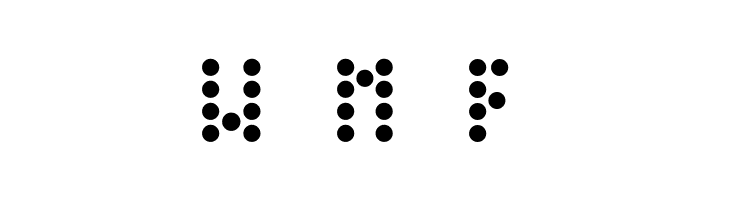
A bold, geometric font with a retro, layered line design.
A bold, decorative font with a gradient effect and horizontal stripe pattern.
A bold decorative font made up of filled arrow symbols in diverse styles.
A modern, dot-based font with a geometric and playful style.
A modern, dot-based font with a playful and unique style.
A geometric, puzzle-like decorative font with interconnected block designs.
Halloween-themed pictogram font with spooky illustrations.
A modern, dotted font with a playful and creative style.
A retro, ASCII art-inspired display font with a digital aesthetic.
A bold, italicized font with a futuristic, shadowed design.
A geometric, diamond-enclosed font with bold, angular lines.
A dot-based font with a digital, modern aesthetic.
A jagged, gothic-style font with sharp, dramatic characters.
A playful, dotted font with a digital, pixelated appearance.
A playful, dot-based font with a modern and creative style.